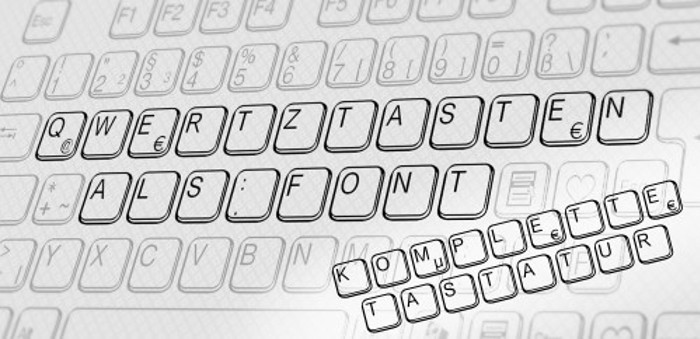
aa QWERTZ-Tasten Font
I needed good graphics of a German QWERTZ keyboard, so I made this font according to my needs. It contains all standard keys plus a heart key. If you're interested in a PDF showing how to type the keys, please visit my site www.anke-art.de
Einer der wenigen, komplett deutschen Tastatur-Fonts mit einer Windows-Fahne. Mehr als wünschenswert, wären noch die anderen Windows-typischen Tasten und der Hammer wäre dann auch noch eine Variante für Mac (mit allen Apple-typischen Schriften).
Aber bis hierher die wohl beste Schrift für PC- und Tastaturanleitungen 😉